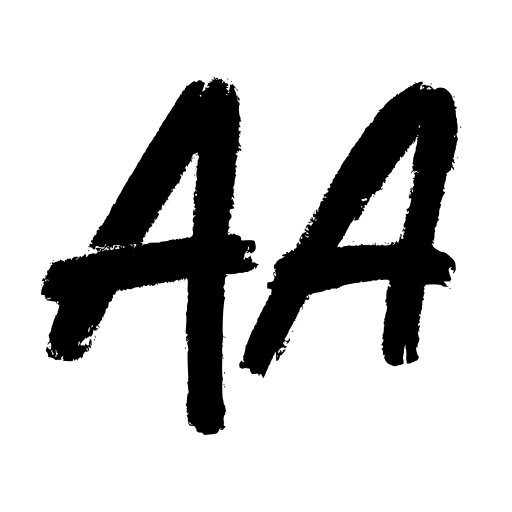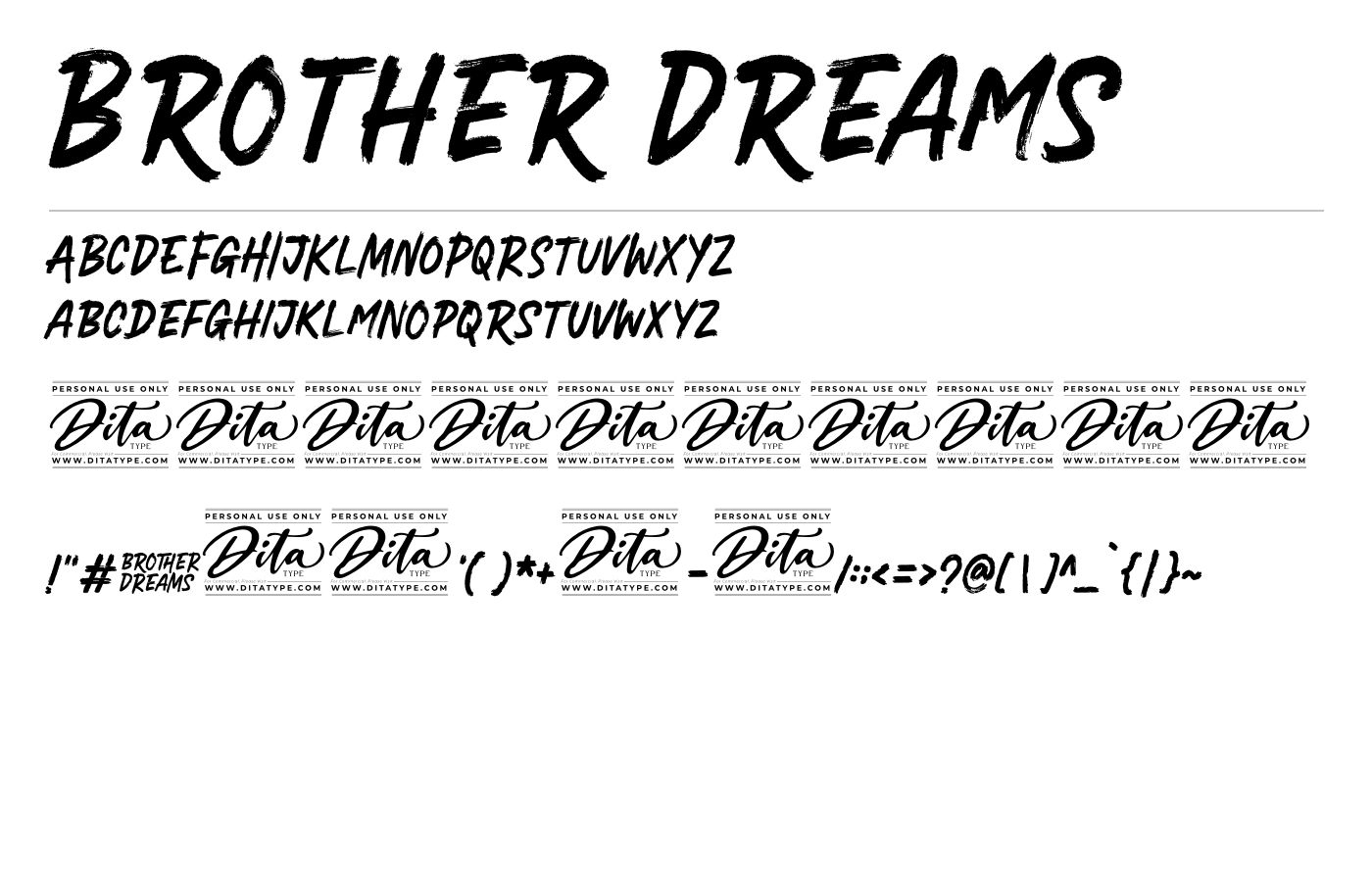
Brother Dreams is a bold, brush-style sans serif font with an energetic and hand-painted feel. It features irregular strokes and a casual, slightly condensed shape, making it ideal for dynamic headlines, logos, and creative projects that seek a spirited, authentic vibe. This font works well for brands and designs that want to convey creativity, informality, and a strong personal touch.
Brother Dreams Font
About Brother Dreams Font
| Font family | Brother Dreams Font |